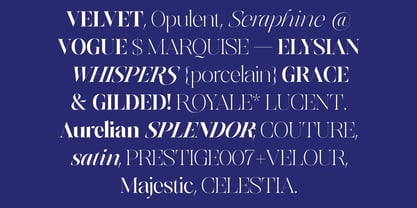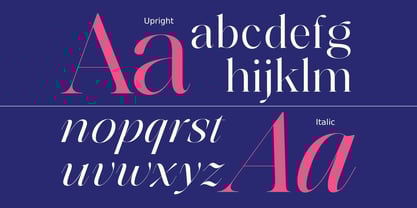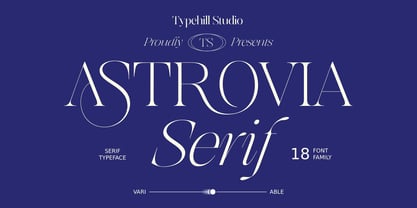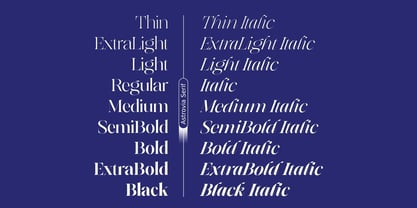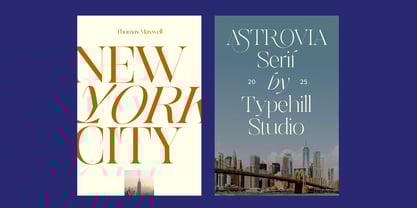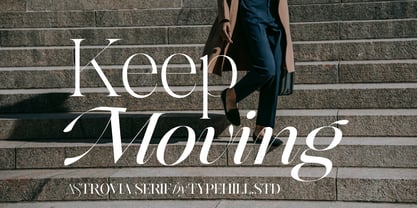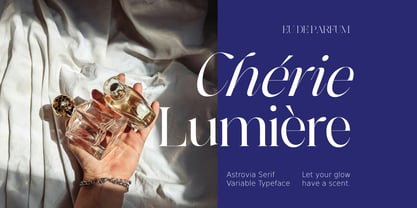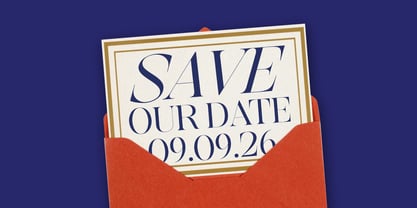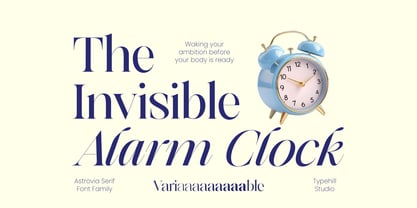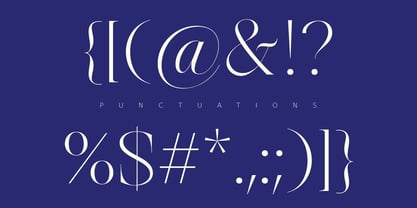
Astrovia Serif
by Typehill Studio
The Astrovia Serif Font Family was designed by Teuku Fahruddin and published by Typehill Studio. Astrovia Serif contains 20 styles and family package options.
Astrovia Serif is a modern serif typeface family designed with a perfect balance between classic elegance and contemporary character. Featuring 18 complete styles — from Thin to Black, each paired with smooth and dynamic Italics — this family offers exceptional versatility for a wide range of design applications. Built with sharp yet graceful serif structures at every stroke, Astrovia Serif delivers a professional look in long texts, editorials, brand identities, and sophisticated packaging designs. The Italic styles bring expressive rhythm and refined motion while maintaining excellent readability. As a Variable Font, Astrovia Serif allows you to freely adjust weight and style across a broad typographic spectrum — creating smooth transitions from light to bold in a single, efficient file.